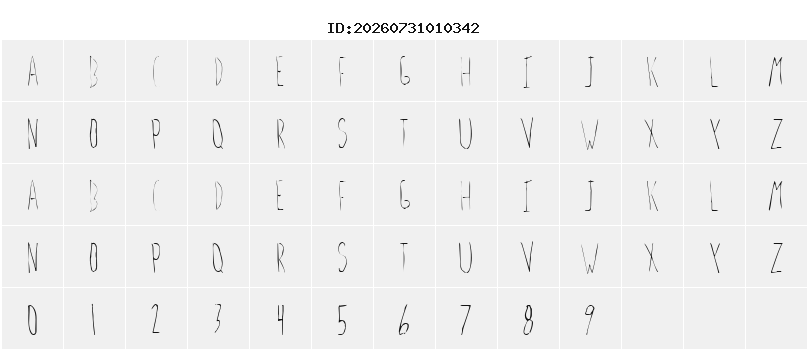
• Font Name: Lockjaw
• Full Font Name: Lockjaw
About Lockjaw.ttf
Lockjaw.ttf is a modern, elegant sans-serif font designed for ultimate readability and visual harmony. Perfect for branding, headlines, web design, and print materials.